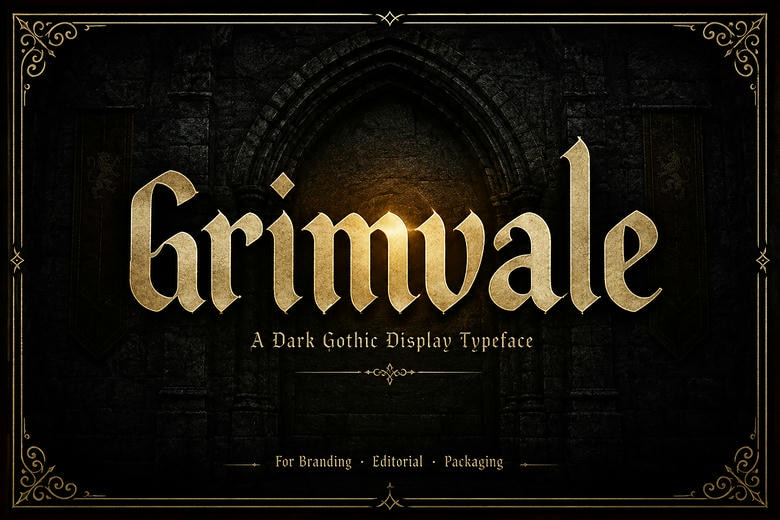
Grimvale Font
Grimvale is a bold blackletter display font inspired by medieval manuscripts, gothic architecture, and classic craftsmanship. Its sharp edges and elegant curves give it a strong, memorable look.
Whether you are designing branding, fantasy book covers, posters, apparel, logos, packaging, or headlines, Grimvale adds a bold visual impact and a refined gothic style.
Grimvale is designed for those who appreciate historical elegance with a modern twist. It transforms ordinary typography into eye-catching designs.
Grimvale Blackletter Font